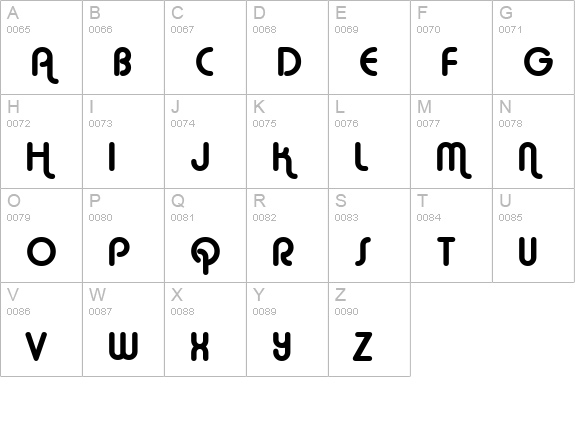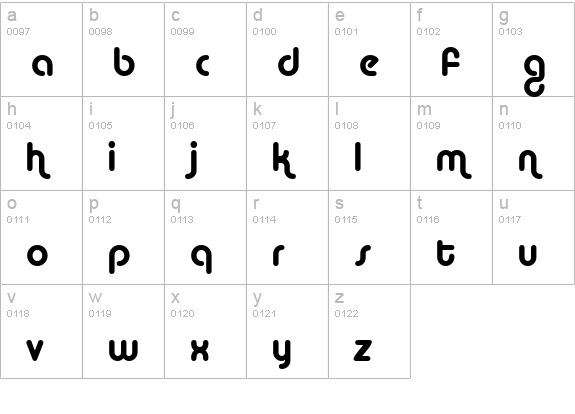
Alba Font Details
Alba font is a modern and elegant typeface that exudes sophistication and style. Its sleek lines and rounded edges make it perfect for a wide range of design projects, from branding to editorial design. The versatility of this font allows it to be used in both digital and print media, making it a valuable addition to any designer's toolkit. What makes Alba font even more appealing is that it is available for free download at FontsMarket.com. This means that you can easily access this high-quality typeface without any cost, making it a great option for designers on a budget or anyone looking to enhance their creative projects with a touch of class. With its timeless design and accessibility, Alba font is sure to elevate your designs and help you stand out from the crowd. Download it today and see the difference it can make in your next project!